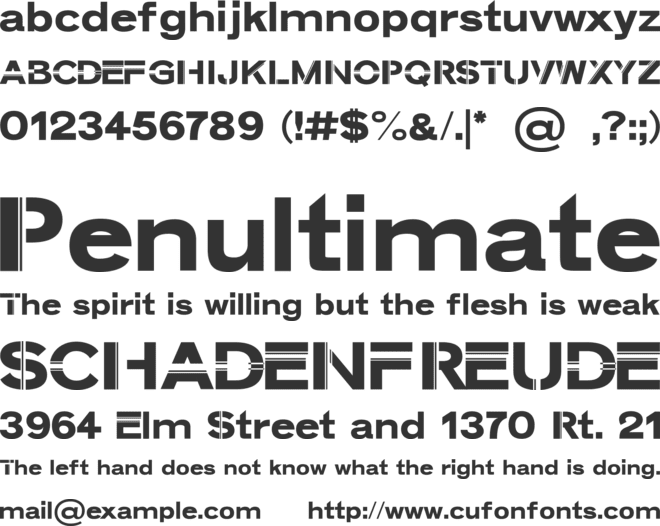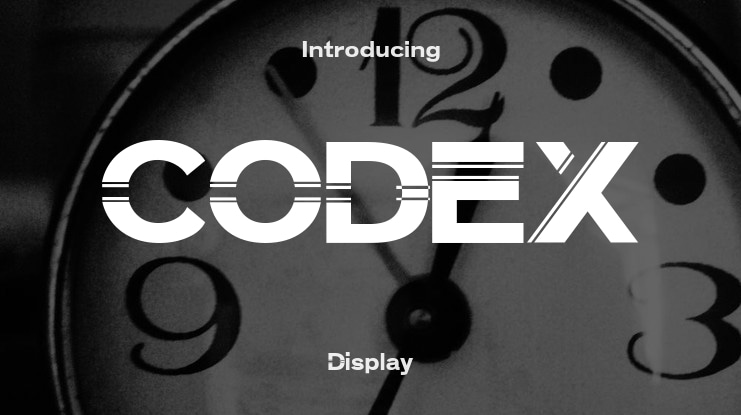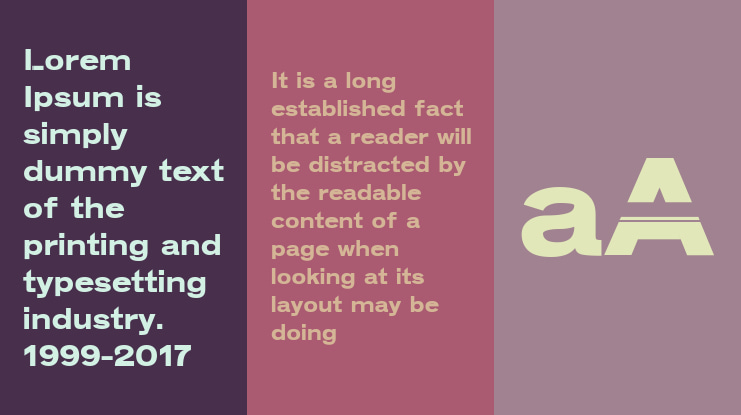
CODEX Font Family
🎨 Font Name: CODEX by Minimalist Art Studio
🎨 Font description: Codex is a futuristic geometric sans with multilingual support—perfect for tech branding, digital interfaces, and sci-fi editorial layouts.